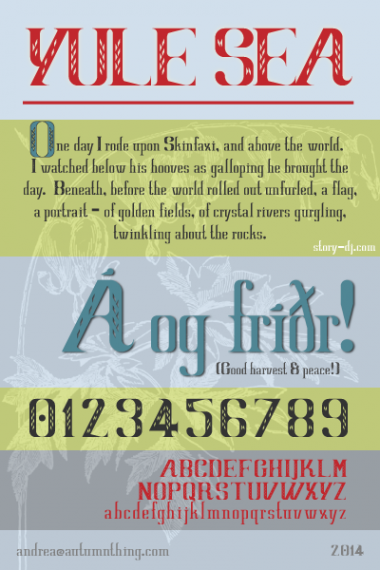
I kind of did this for the inline comp but am not sure it qualifies. What do you think?
It looks like it qualifies to me, enter it and let the judges decide.
I'm with architaraz. You have an interesting uppercase here, btw.
I had too much fun with this :P Enjoy!
I'm loving it!
The Uppercase is great (maybe the lower case is a wee bit too small in comparison)
A very elegant inline serif, good not only at Yule :)
Yule Seaby autumnthing